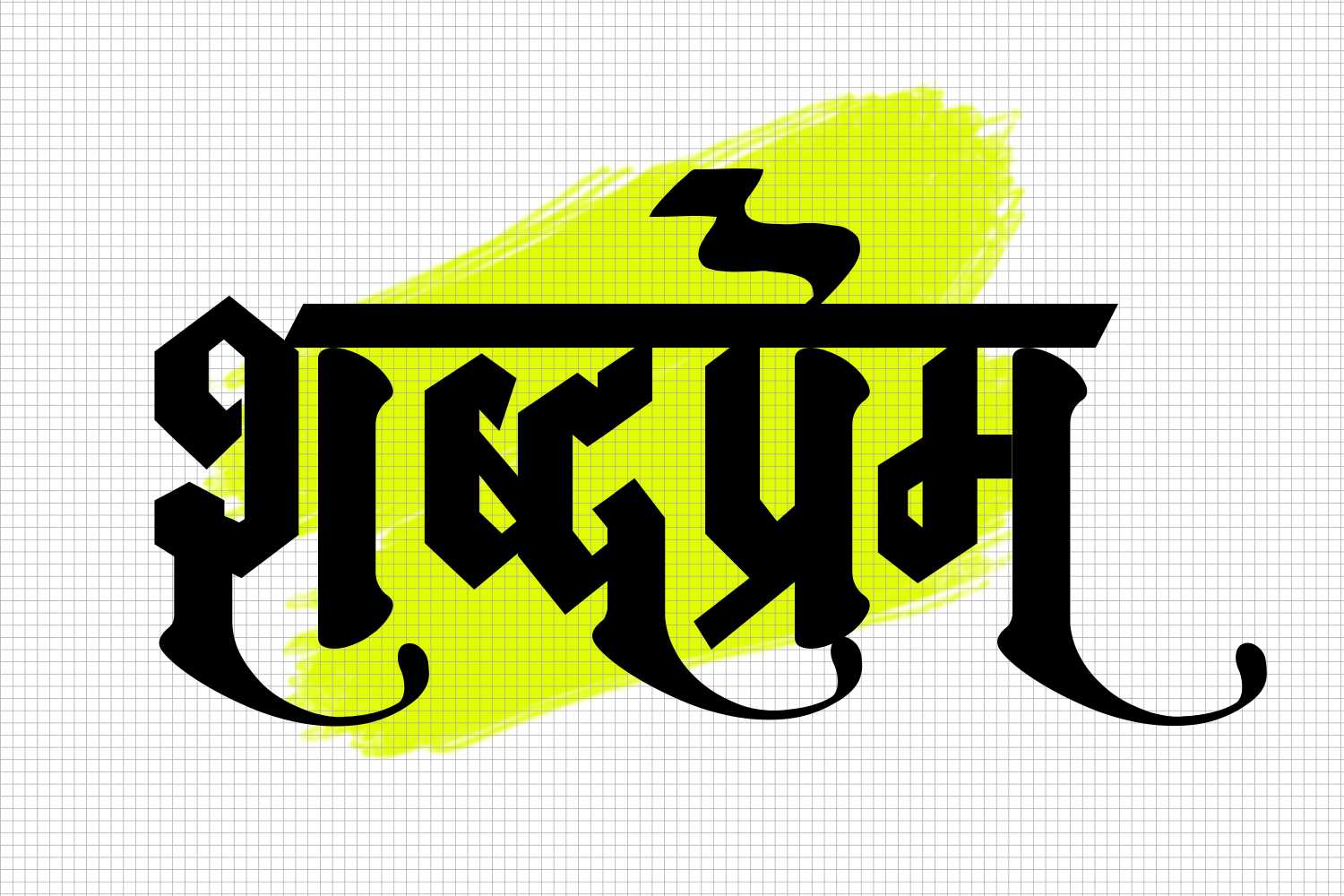
AMS Geoscript
Explore the creative possibilities with AMS GeoScript, a calligraphy font that combines style and versatility. Whether you're searching for AMS GeoScript font download options or free AMS calligraphy fonts, AMS GeoScript offers a range of expressive letterforms to elevate your designs.
About AMS Geoscript Font
Explore the creative possibilities with AMS GeoScript, a calligraphy font that combines style and versatility. Whether you're searching for AMS GeoScript font download options or free AMS calligraphy fonts, AMS GeoScript offers a range of expressive letterforms to elevate your designs. This calligraphy font combines elegance with functionality, making it perfect for various design applications.
AMS Geoscript is a professionally crafted calligraphy typeface that brings clarity and style to your projects. Designed with attention to detail, it supports hindi and marathi characters flawlessly.
Whether you're working on wedding-materials, invitations, logos, or other creative projects, AMS Geoscript delivers consistent performance across both digital and print media. This carefully designed typeface ensures readability and visual appeal in all your design work.
About AMS Geoscript Typography Style
AMS Geoscript is a professionally crafted calligraphy font that exemplifies modern Hindi typography design. This free font is perfect for designers seeking professional branding and logo design projects.
Available in 1 weight and supporting hindi, marathi scripts, AMS Geoscript offers exceptional versatility for both digital and print media. Whether you're working on wedding-materials, invitations, logos, this carefully designed typeface ensures consistent quality and professional results across all your typography projects.